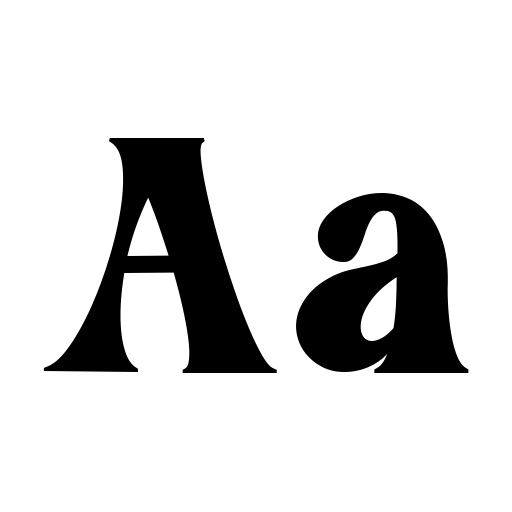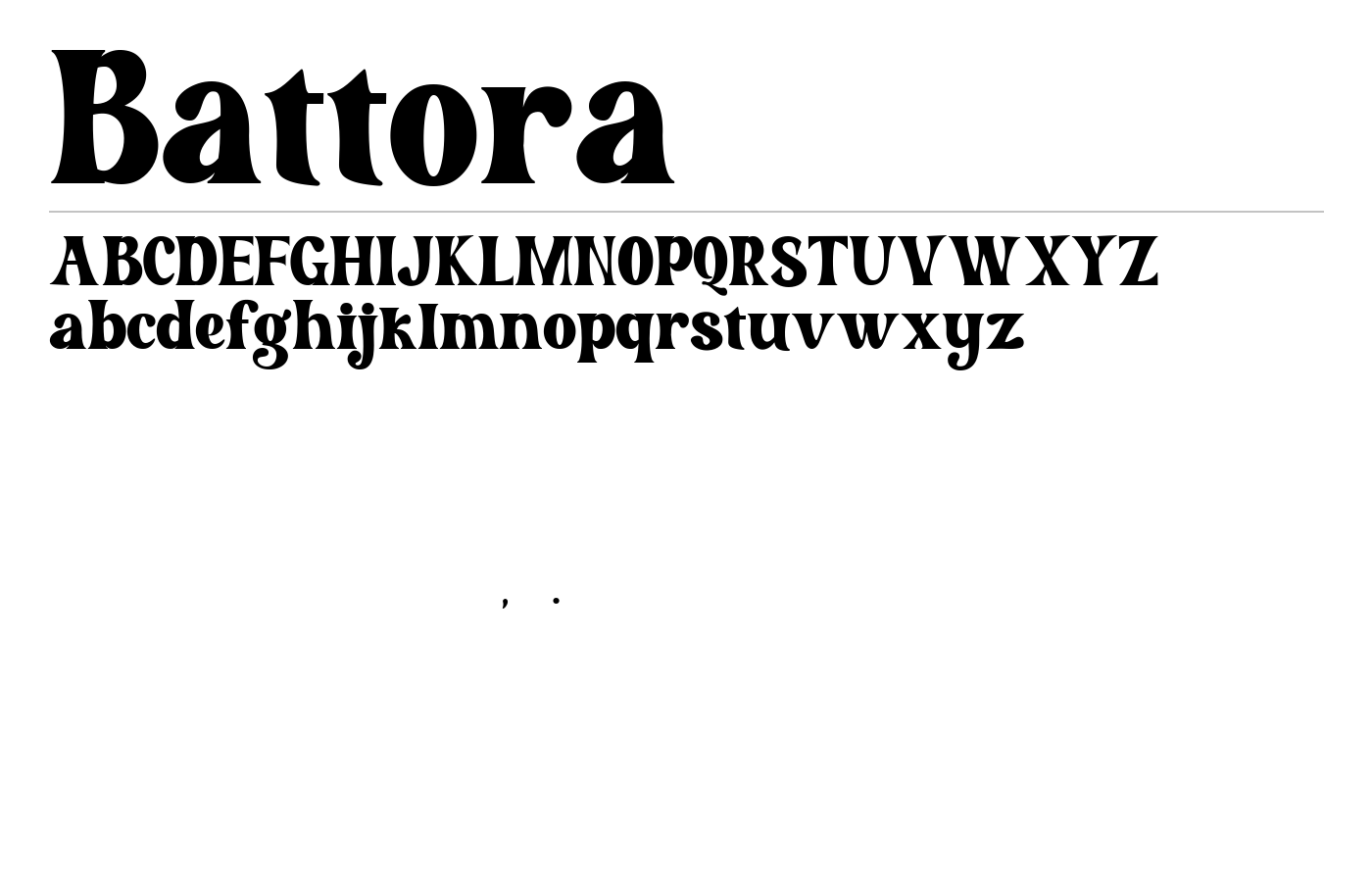
Battora is a bold serif font with a playful and slightly vintage character, featuring thick, bracketed serifs and high contrast between thick and thin strokes. Its somewhat condensed letterforms and unique shapes give it a strong personality that works well for headlines, logos, and packaging where a classic yet distinctive look is desired. This font is ideal for brands seeking a bold and memorable style with a touch of elegance and charm.
Battora Font
About Battora Font
| Designer | Flawless and co. |